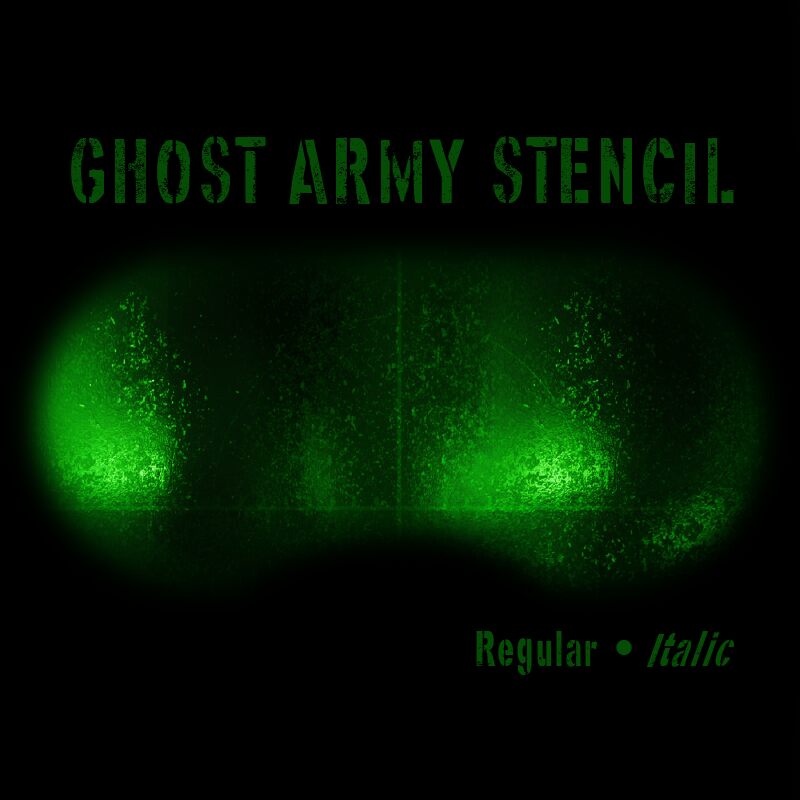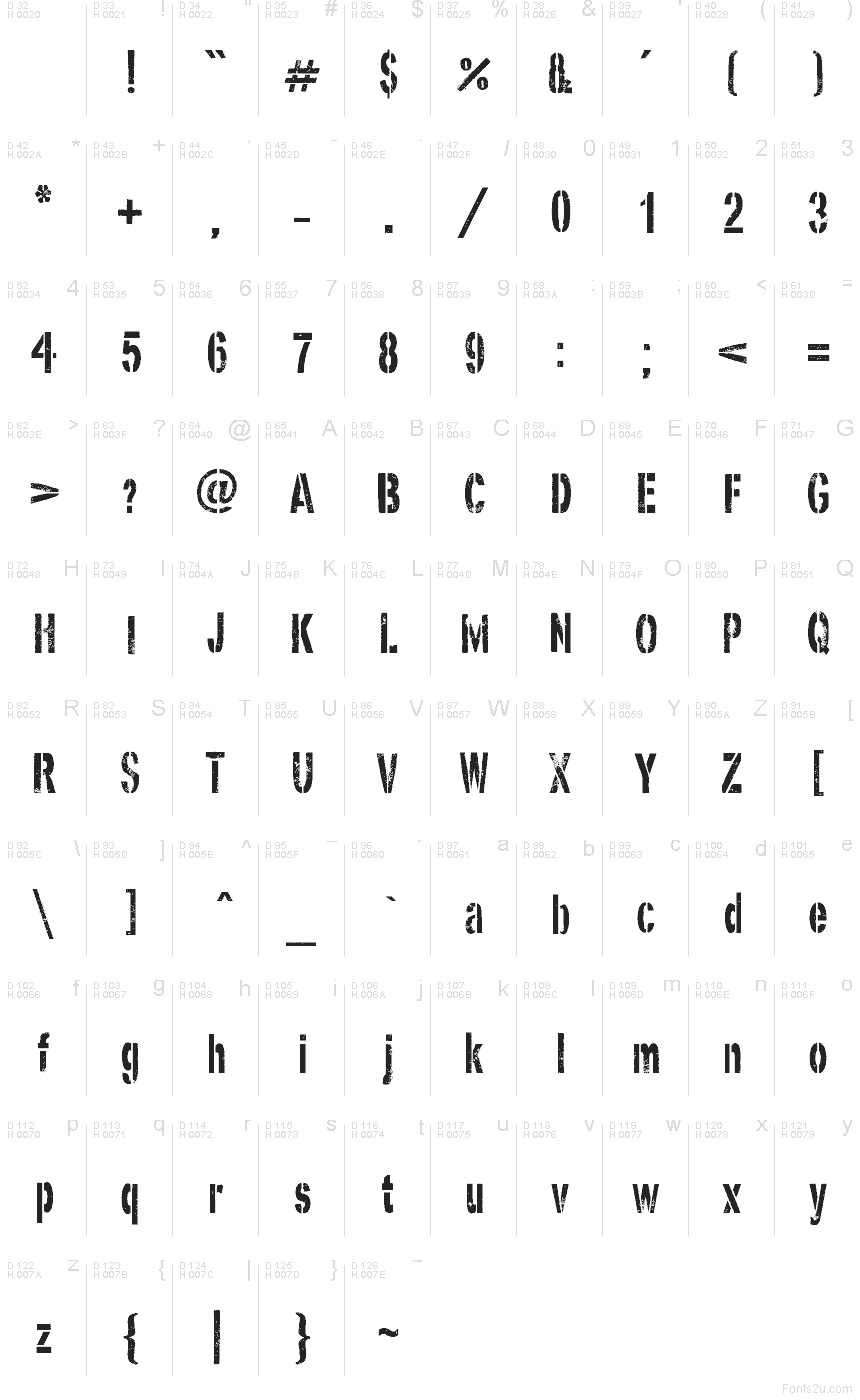
Ghost Army Stencil Regular
Ghost Army Stencil font by Galdino Otten Fonts is a free military stencil display font with rough cut-through openings and worn edges that give the letters a stamped, field-marked look. The shapes are narrow and upright, with broken texture that keeps the stencil structure clear while adding grit.
Ghost Army Stencil works well for army posters, tactical logos, game graphics, event flyers, and poster titles where a stencil cut effect feels natural. This free font also suits warning labels, packaging accents, and editorial graphics that need a stamped, utilitarian tone with visible wear.